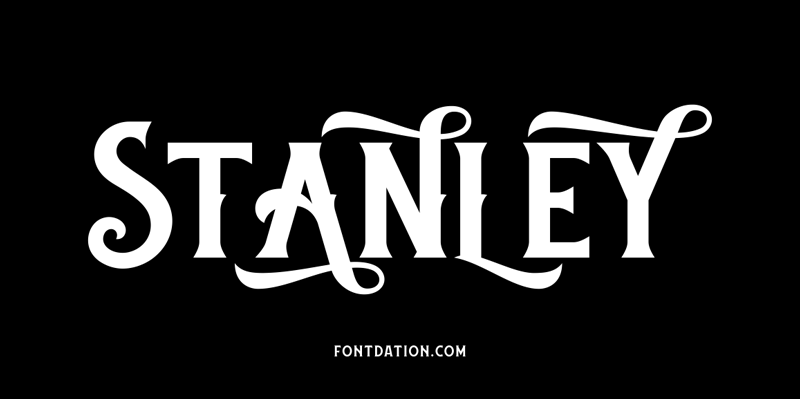
Stanley
Stanley Typeface
Stanley is a vintage typeface inspired by old school signpainting letters, a mixture between sharp and curvy-ornamental edges. Suits best for any vintage themed designs, logo, headline, letterheads, etc.